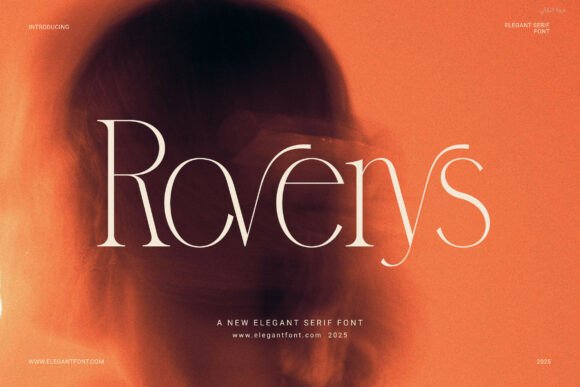
Roverys Font: Elevate Your Brand with a Refined and Modern Serif Typeface
In the world of typography, a well-crafted font can make all the difference in elevating your brand’s visual identity. Introducing Roverys Font, a sophisticated and modern serif typeface designed to bring a touch of elegance to your creative work. With its balanced proportions, smooth curves, and subtle contrast between thick and thin strokes, Roverys Font is the perfect choice for a wide range of branding projects.
The Design Philosophy Behind Roverys Font
Roverys Font is the result of meticulous craftsmanship and attention to detail. The design team behind this font aimed to create a typeface that exudes refinement and sophistication, while maintaining readability and versatility. The result is a font that strikes the perfect balance between classic and modern elements, making it suitable for various applications, from luxury branding to editorial design.
One of the key design principles behind Roverys Font is its balanced proportions. Each letterform has been carefully crafted to ensure that the font flows smoothly and consistently, creating a sense of harmony and cohesion. The smooth curves and rounded edges add a touch of warmth and approachability, making Roverys Font an excellent choice for brands looking to establish a friendly and approachable tone.
The Features of Roverys Font
Roverys Font boasts a range of features that make it an exceptional choice for branding projects. Some of its key features include:
- Balanced proportions: Each letterform has been carefully crafted to ensure that the font flows smoothly and consistently, creating a sense of harmony and cohesion.
- Smooth curves: The smooth curves and rounded edges add a touch of warmth and approachability, making Roverys Font an excellent choice for brands looking to establish a friendly and approachable tone.
- Subtle contrast between thick and thin strokes: The subtle contrast between thick and thin strokes adds visual interest to the font, creating a sense of depth and dimensionality without compromising readability.
- Timeless look: Roverys Font has a timeless quality that makes it suitable for a wide range of branding projects, from luxury brands to editorial design.
The Benefits of Using Roverys Font
Roverys Font offers a range of benefits for brands looking to elevate their visual identity. Some of the key benefits include:
- Sophistication and elegance: Roverys Font exudes refinement and sophistication, making it an excellent choice for brands looking to establish a high-end tone.
- Versatility: The font’s balanced proportions and smooth curves make it suitable for a wide range of applications, from luxury branding to editorial design.
- Readability: The subtle contrast between thick and thin strokes adds visual interest to the font without compromising readability, making it an excellent choice for body text and headlines.
- Uniqueness: Roverys Font has a unique and distinctive look that sets it apart from other serif typefaces, making it an excellent choice for brands looking to establish a strong visual identity.
How to Use Roverys Font in Your Branding Projects
Roverys Font is an incredibly versatile typeface that can be used in a wide range of branding projects. Here are some tips on how to use Roverys Font effectively:
- Use it as a headline font: Roverys Font’s sophisticated and elegant design makes it an excellent choice for headlines and titles.
- Use it as a body text font: The font’s readability and versatility make it suitable for body text, creating a seamless reading experience for your audience.
- Experiment with font sizes and weights: Roverys Font comes in a range of font sizes and weights, allowing you to experiment with different styles and combinations to find the perfect look for your brand.
- Pair it with other fonts: Roverys Font can be paired with other fonts to create a unique and distinctive look. Experiment with different font combinations to find the perfect pairing for your brand.
Roverys Font is a refined and modern serif typeface designed to bring sophistication and elegance to your creative work. With its balanced proportions, smooth curves, and subtle contrast between thick and thin strokes, this font delivers a timeless look suitable for a wide range of branding projects. Whether you’re looking to establish a high-end tone, create a unique visual identity, or simply elevate your brand’s typography, Roverys Font is an excellent choice.
- What is Roverys Font?: Roverys Font is a refined and modern serif typeface designed to bring sophistication and elegance to your creative work.
- What are the key features of Roverys Font?: The key features of Roverys Font include balanced proportions, smooth curves, subtle contrast between thick and thin strokes, and a timeless look.
- What are the benefits of using Roverys Font?: The benefits of using Roverys Font include sophistication and elegance, versatility, readability, and uniqueness.
- How can I use Roverys Font in my branding projects?: Roverys Font can be used in a wide range of branding projects, including as a headline font, body text font, and in combination with other fonts.